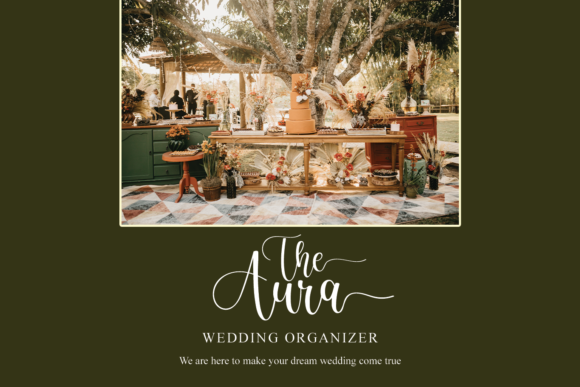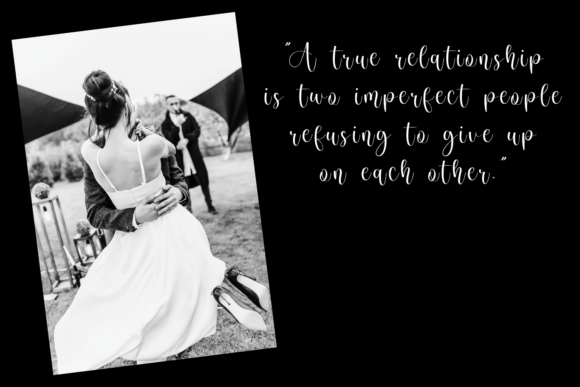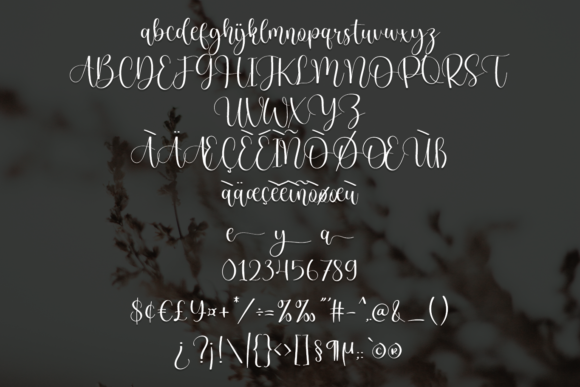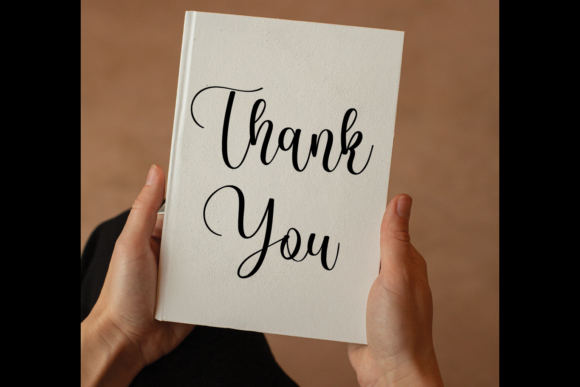
The Journey Font
About The Journey Font
The Journey is a lovely and delicate script font that exudes elegance and class. This font was particularly crafted for those who need a beautiful and refreshing look to their designs. Add it confidently to any of your creative projects, and it will make them outstanding!